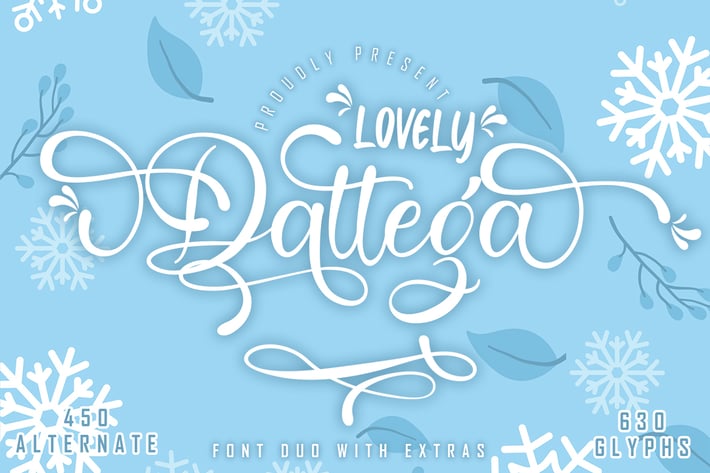
Lovely Dattega - Font duo
Lovely Dattega is a sweet duo font (script and sans). Incredibly versatile, this font fits a wide pool of designs, elevating them to the highest levels. Add this font to your favorite creative ideas and notice how it makes them come alive!
+ 450+ Alternate Opentype
+ Uppercase & Lowercase letters
+ Numbering and Punctuations
+ Ligatures lowercase
+ Multilingual Support\
+ Basic Latin Language Support (AÀÁÂÃÄÅCÇDÐEÈÉÊËIÌÍÎÏÑOØÒÓÔÕÖUÙÜÚÛWYÝŸÆß )